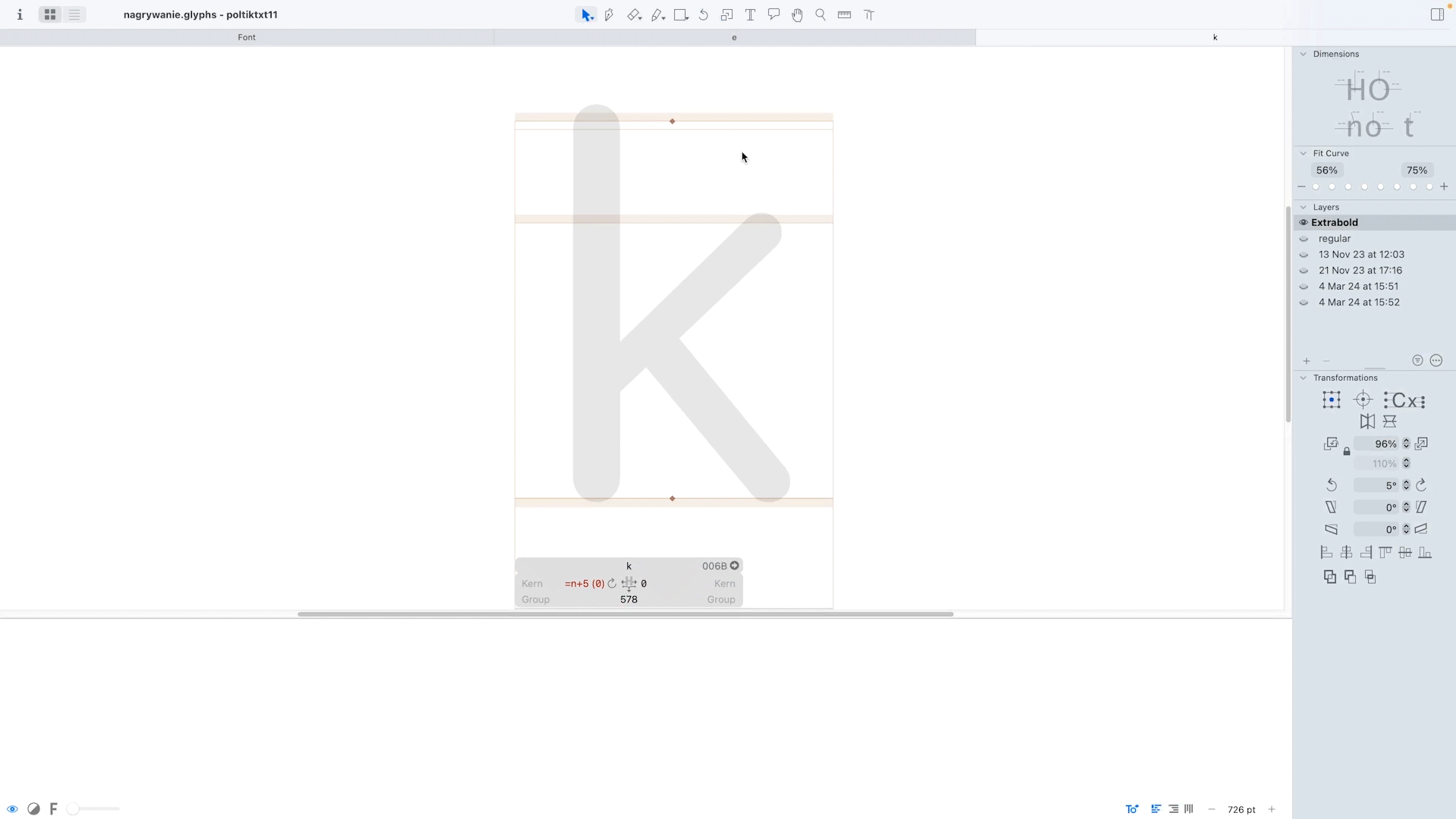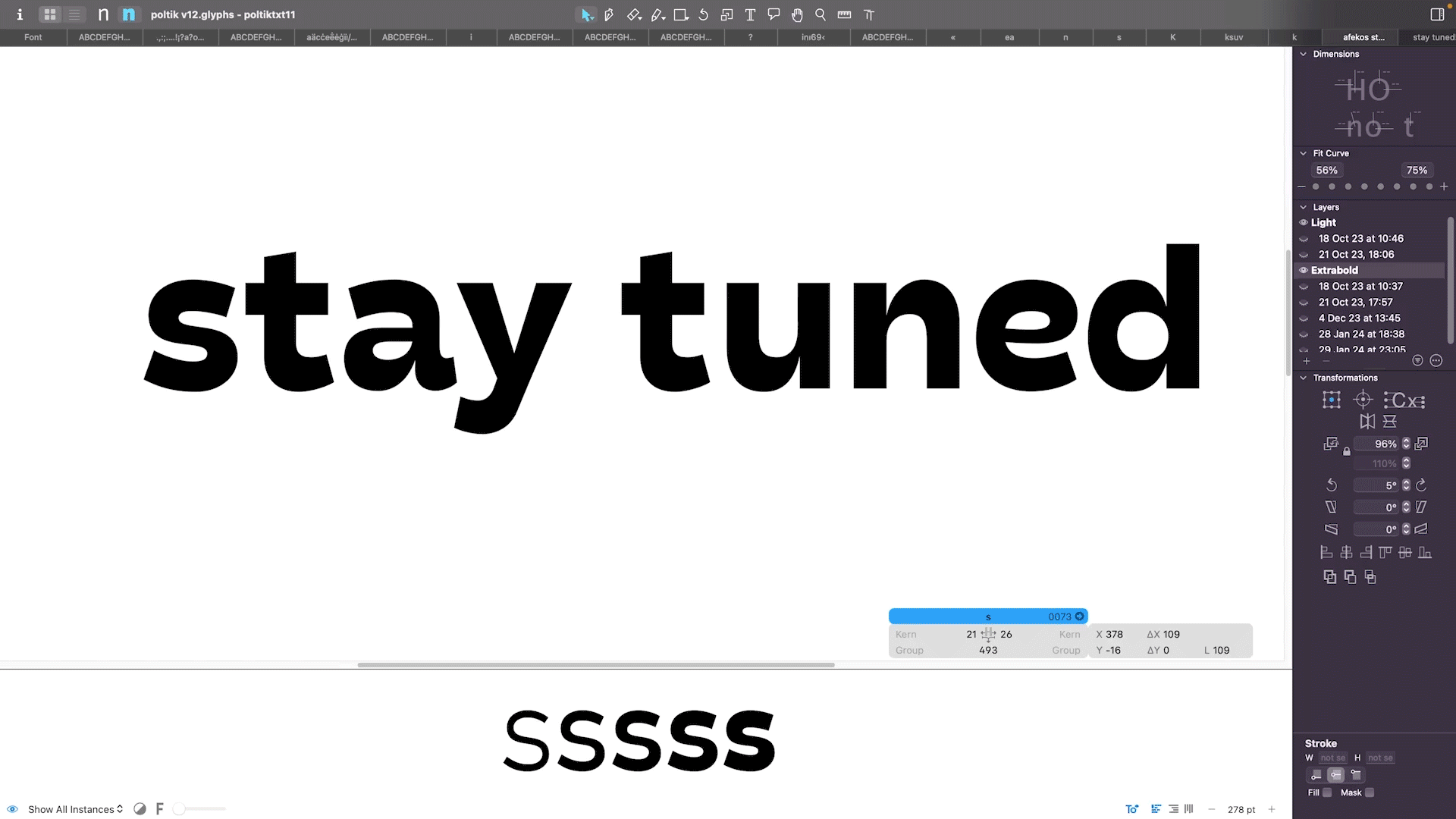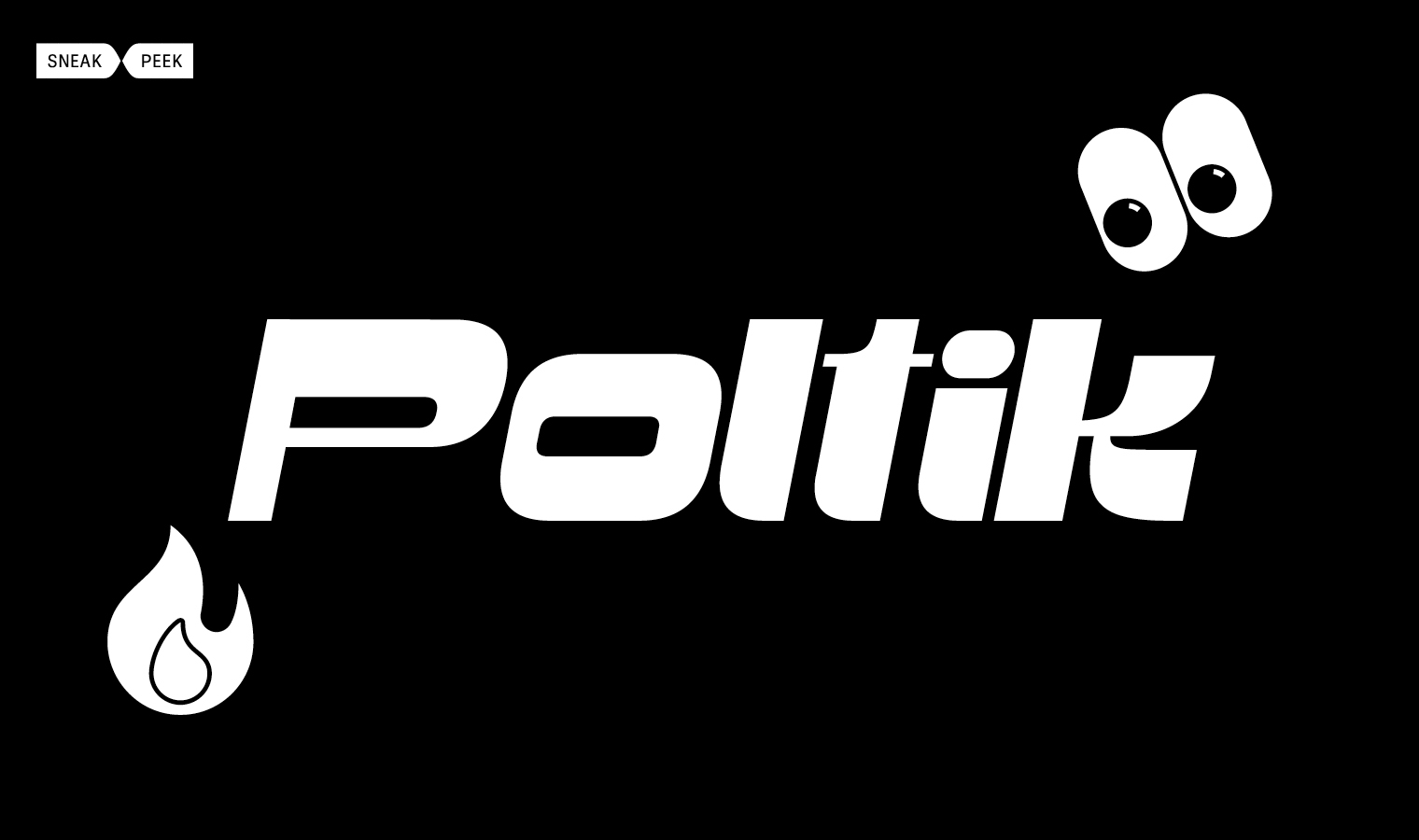
Counting down to Poltik
The only thing better than what’s expected is something wonderfully unexpected. Speaking of, Poltik is already outgrowing its oversized display shoes.
Last year Patrycja Walczak won our Gerard Unger Scholarship with her Poltik typeface. It began as a no-holds-barred display-only font (based on an old clock), and she has been diligently working on a fun idea for the text styles: a reverse contrast that’s as useful as it is interesting.
What’s a reverse contrast typeface? It’s when most of the character’s weight has settled in the top and bottom hemispheres. It adds an unique feel to the family that reads well but doesn’t sit within the boring norm.
It’s still not ready for prime time yet, but we wanted to show you its current state so you have something to anticipate. First, a reminder of the display version, and then a look at the text family. Enjoy!